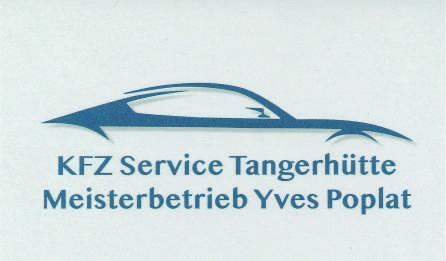
Buisness-Card font is unknown (KFZ Service Meisterbetrieb)
It’s the latin counterpart of several East Asian typefaces bundled with Apple products (Lao MN, Khmer MN, etc.).